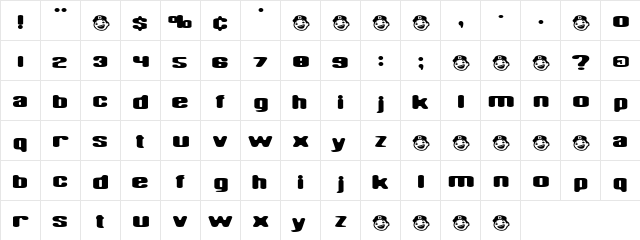
Dreamgirl Regular
Design Context for Dreamgirl Typeface
Dreamgirl offers clean, dependable letterforms without strong stylistic allegiance, making it a practical choice for designers who need flexibility.